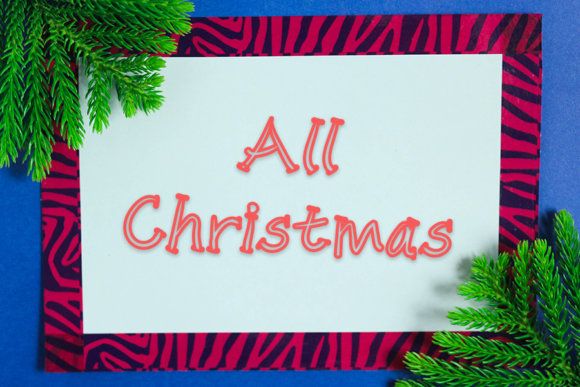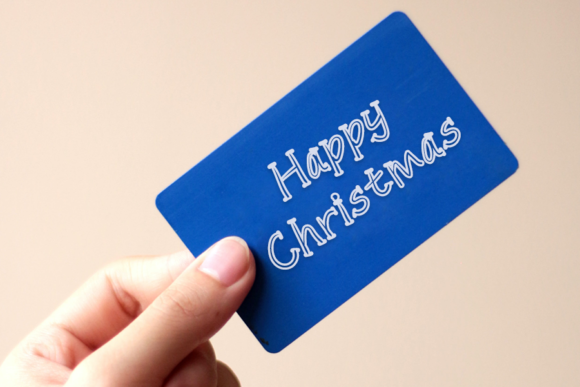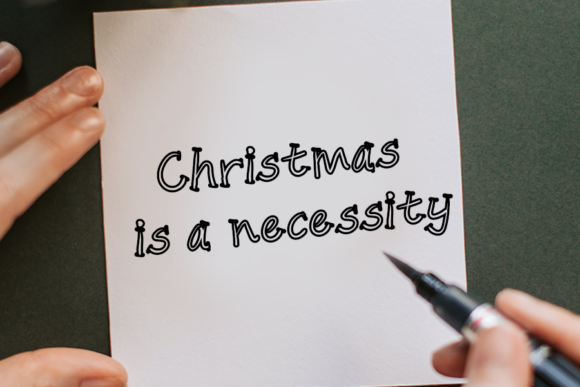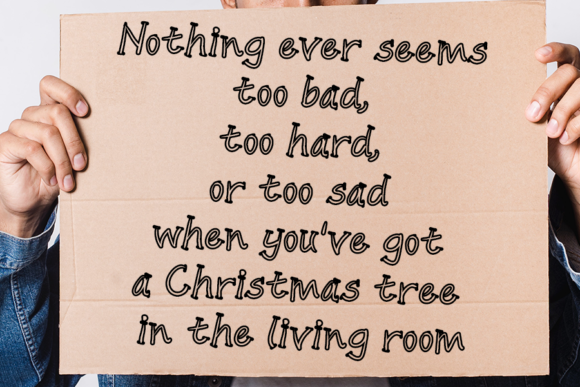
Wish of Christmas Font
About Wish of Christmas Font
Wish Of Christmas is a fun and quirky handwritten font. It has a trendy look and it is ideal for writing joyful and fun holiday letters. Add this font to your favorite creative ideas and notice how it makes them come alive!